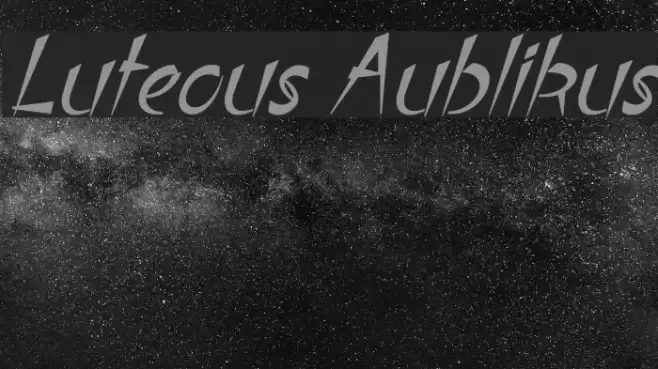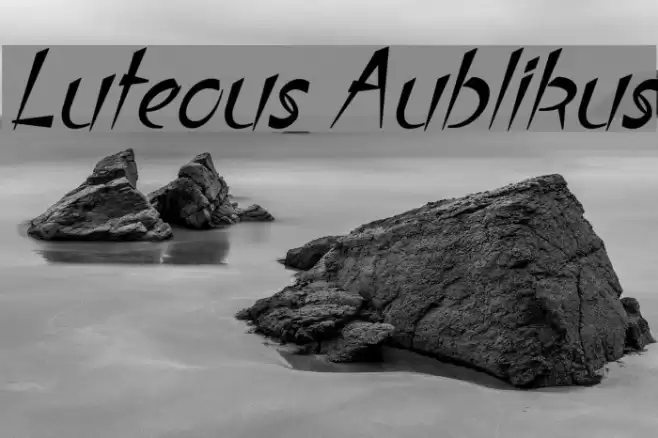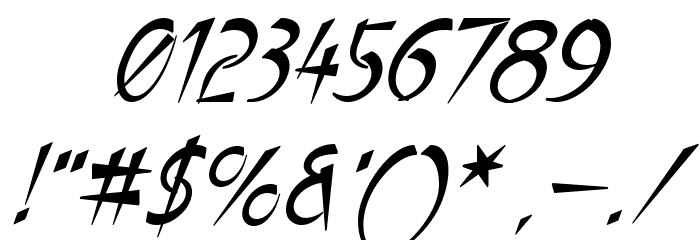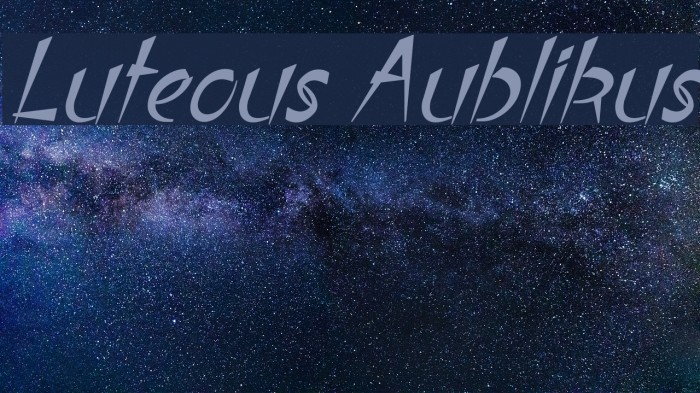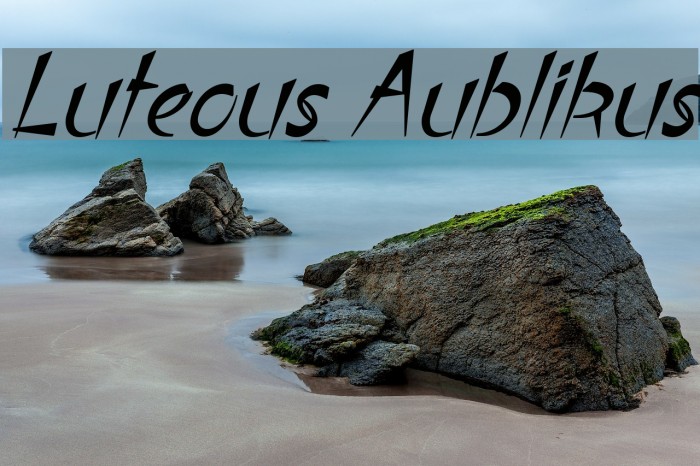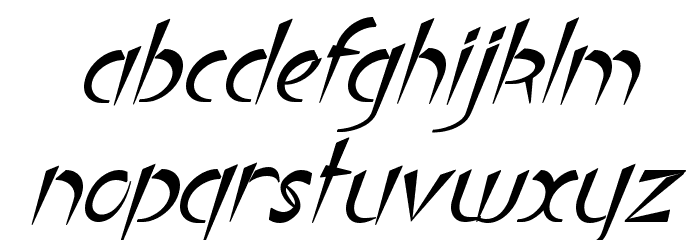
Luteous Aublikus Font
Luteous Aublikus Description
This font exhibits a dynamic and energetic style with sharp, angular strokes and a forward-leaning slant, giving it a sense of motion and urgency. The characters are elongated and slightly condensed, with a distinctive flair that adds a touch of drama. The uppercase letters are bold and commanding, while the lowercase letters maintain a consistent style with a slightly more playful touch. The numerals are clear and legible, matching the overall aesthetic. Special characters are designed with the same angular precision, ensuring a cohesive look across all glyphs.
A dynamic, angular font with a forward-leaning slant and dramatic flair from Uncategorized fonts.
- Proposed Projects: Ideal for use in sports branding, dynamic posters, or any project requiring a sense of movement and energy.